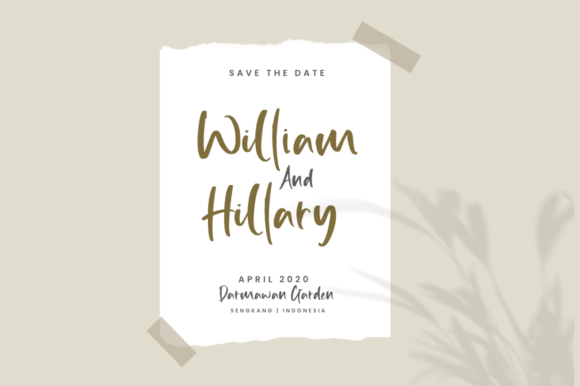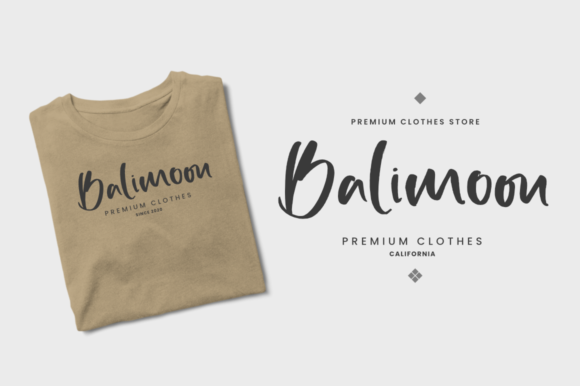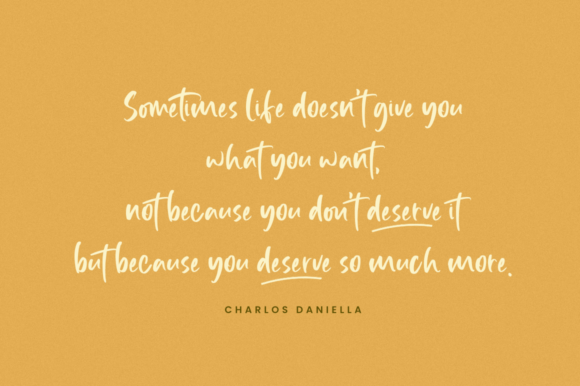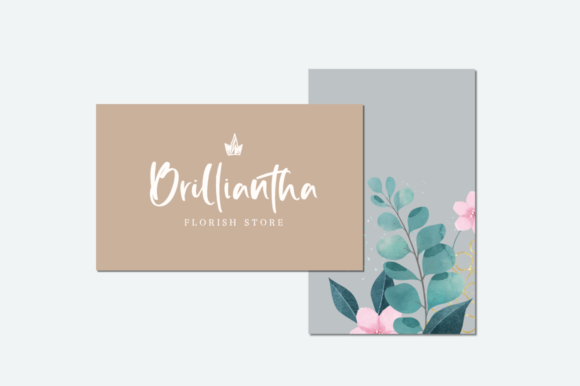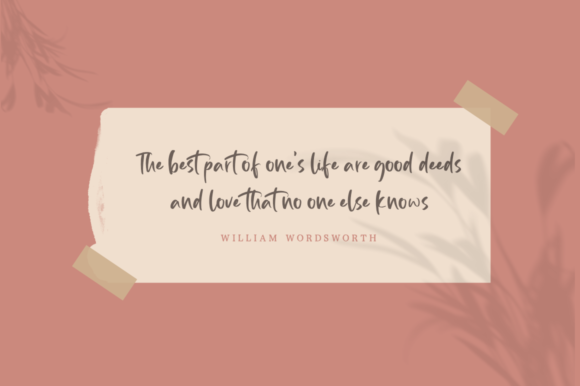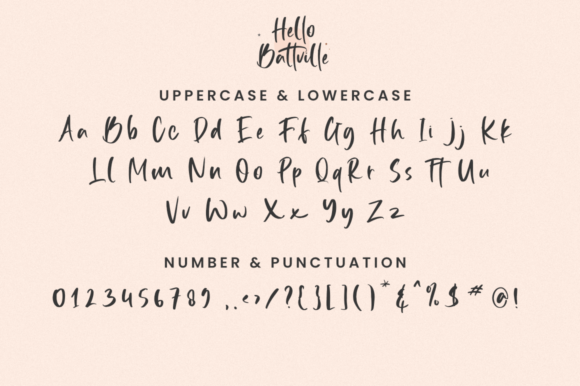
Introduction to Hello Battville Font
Hello Battville is a relaxed, whimsical and friendly script font.
Key Features of Hello Battville Font
Why Choose Hello Battville Font?
Hello Battville Font offers exceptional quality and versatility, making it a valuable addition to your design toolkit. Whether you’re creating for personal projects or commercial use, Hello Battville Font delivers professional results.